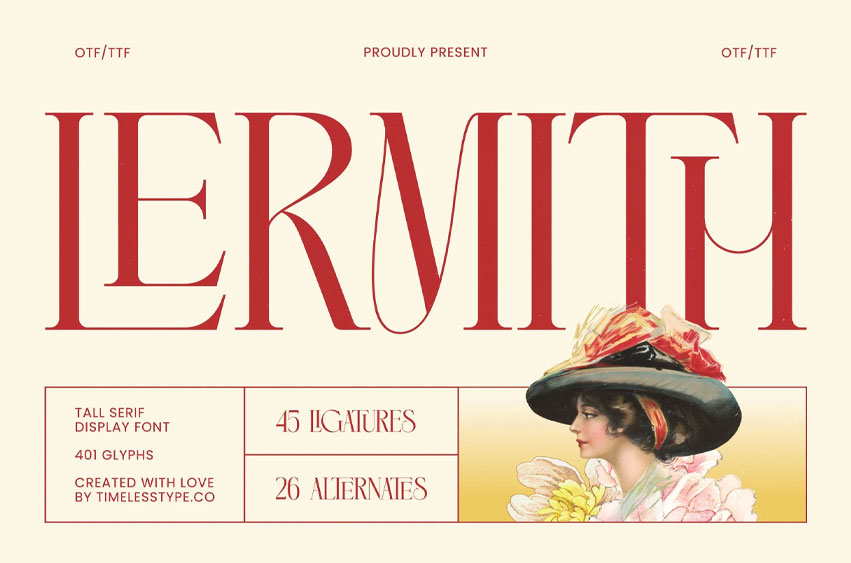
Lermith Font is a Tall Serif Display Font crafted with refined elegance, elongated proportions, and stylish contrast strokes. Its expressive curves and sharp serifs create a sophisticated visual presence that elevates any premium design project — from luxury branding and editorial layouts to vintage-inspired posters, packaging, and artistic visual identity work.
Featuring 45 ligatures and 26 alternates, Lermith gives designers the creative flexibility to craft unique headlines, ornate typography compositions, and personalized logo marks. This font is ideal for projects that demand uniqueness, timeless character, and a touch of artistic flair.